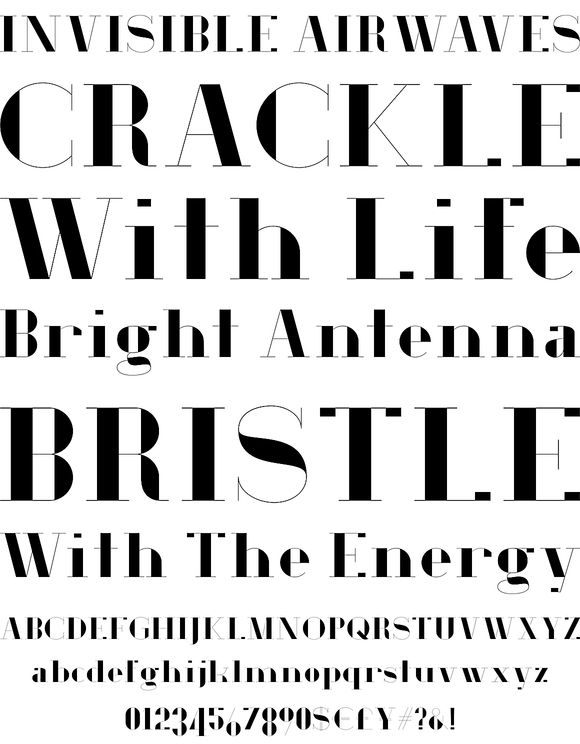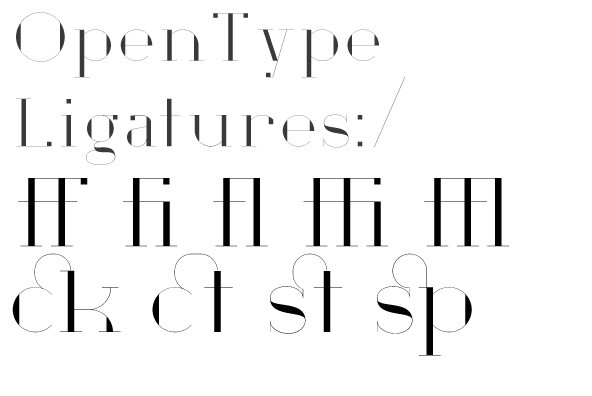
GHS is an exciting new typeface from HouseOfBurvo, it comes in 4 styles, each style is sold in 3-font sets containing a Key font, and two 'Layer' fonts separating the Hairline Strokes from the Stress parts. These layers can be combined to create endless variations. You can offset them for varying degrees of distress, or even treat them with different colours or process.